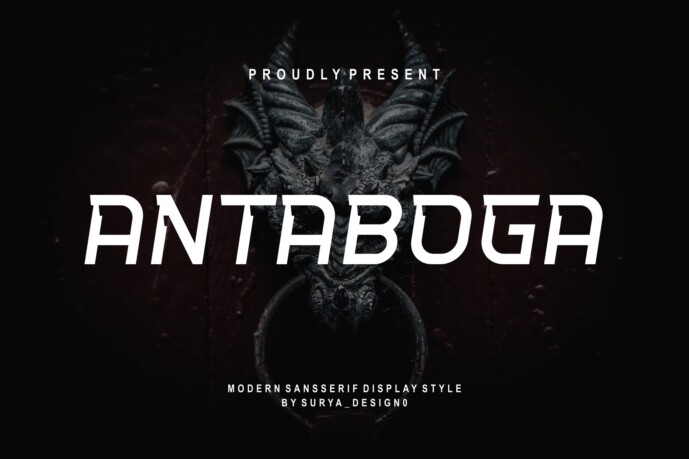
Antaboga Font
Introducing our new product Antaboga Font – Modern Font
Antaboga Font – Modern Font is a bold and authentic display font. The font is suitable for any branding project like logo, t-shirt printing, esport, and many more. outstanding in a wide range of contexts.